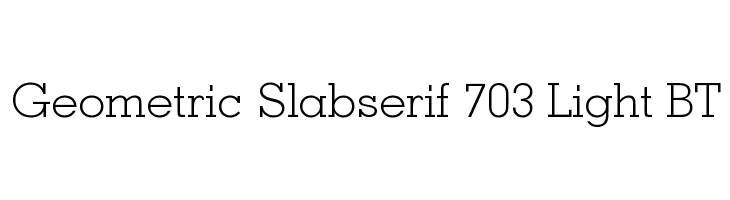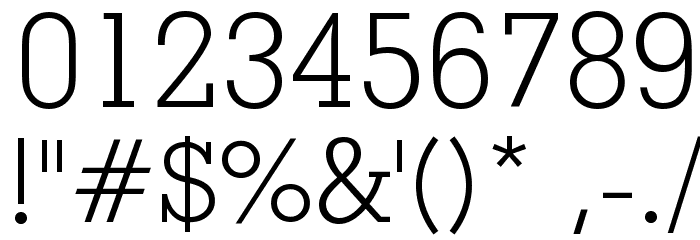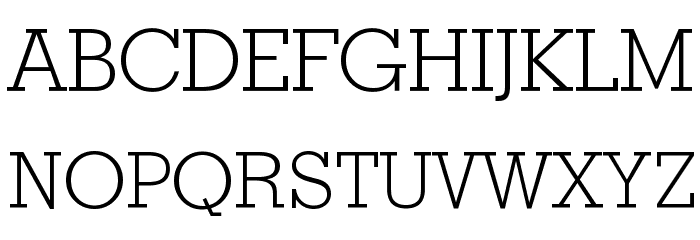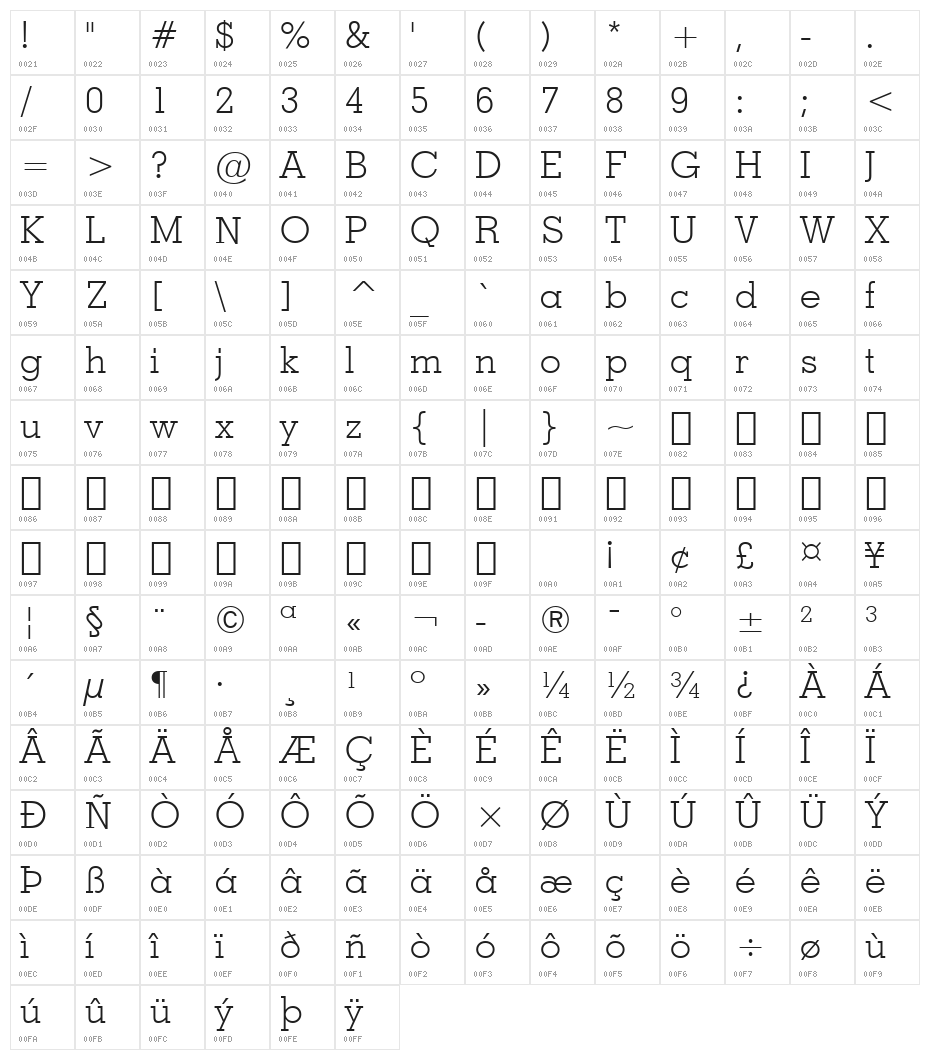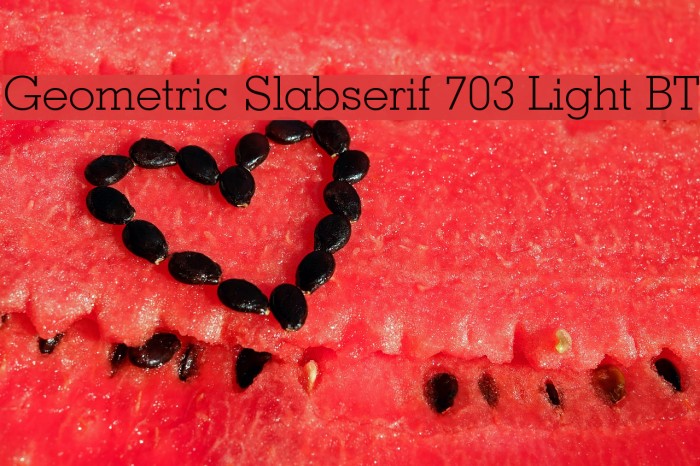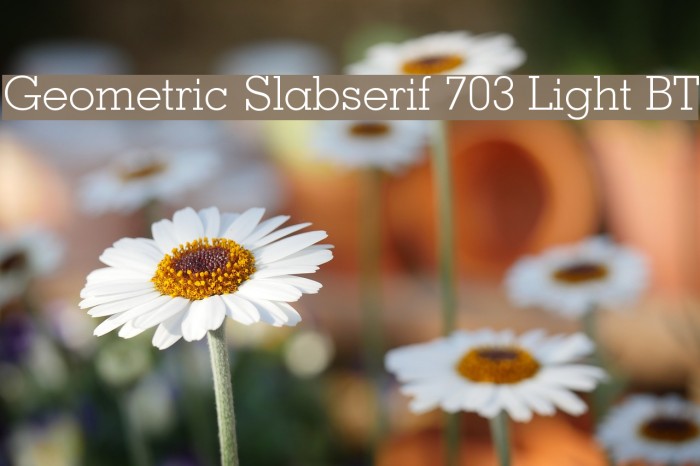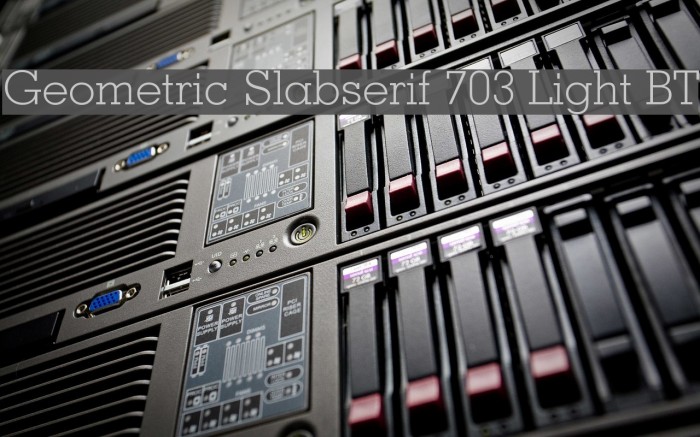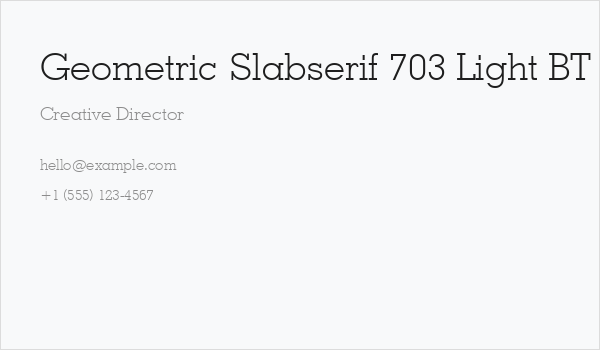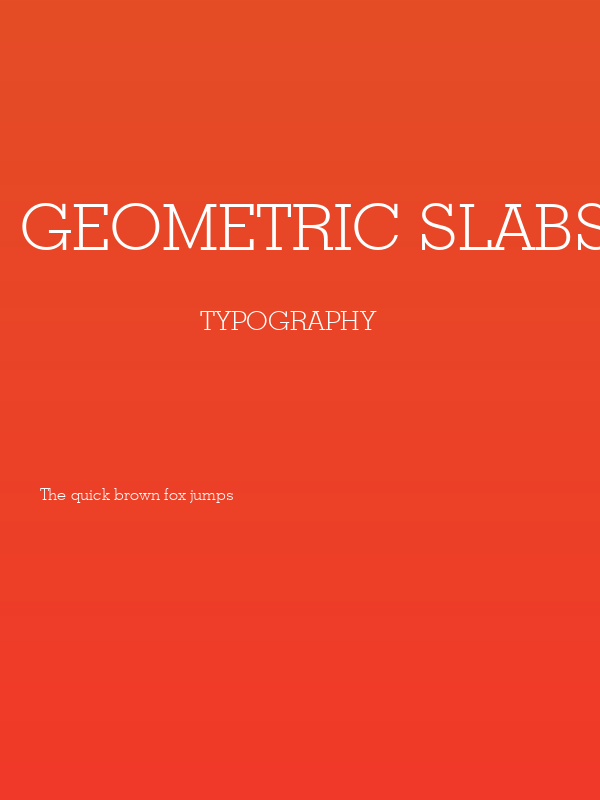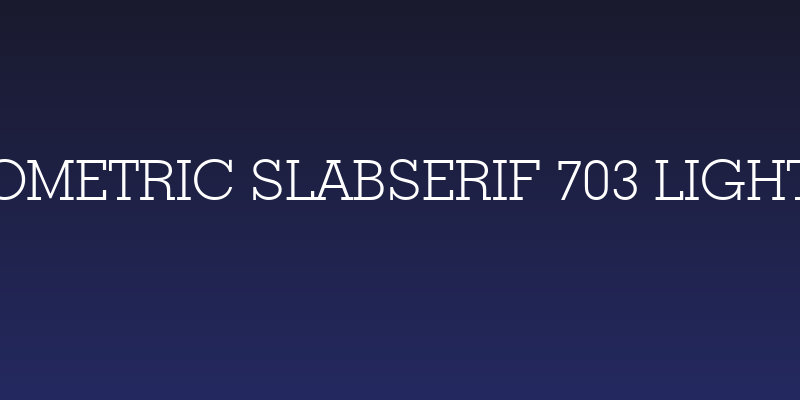
Geometric Slabserif 703 Light BT Font
Geometric Slabserif 703 Light BT Description
This font features a geometric slab serif design with a light weight, offering a clean and modern appearance. The characters are well-defined with consistent stroke widths, providing a balanced and harmonious look. The uppercase letters are bold and authoritative, while the lowercase letters maintain a friendly and approachable style. The numerals are clear and legible, making them suitable for various applications. Special characters are included, enhancing the font's versatility. The overall design is both functional and aesthetically pleasing, making it ideal for a wide range of design projects.